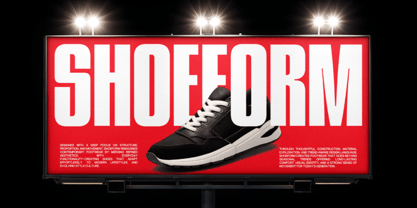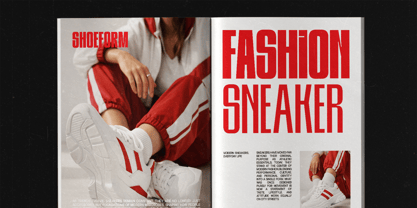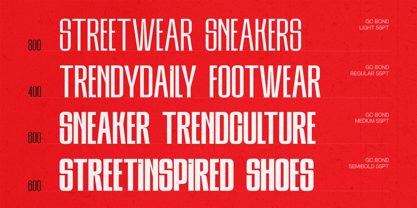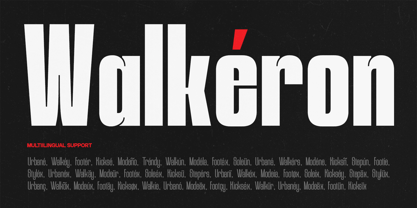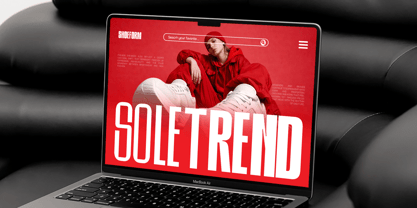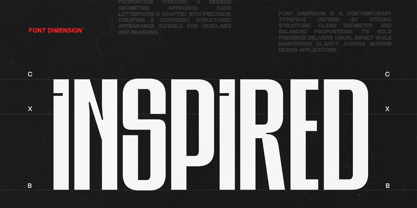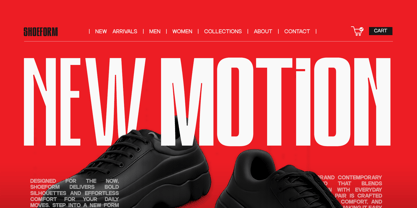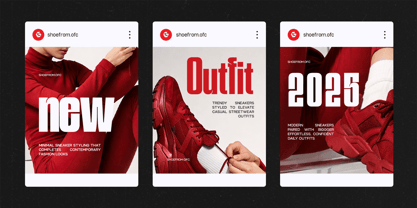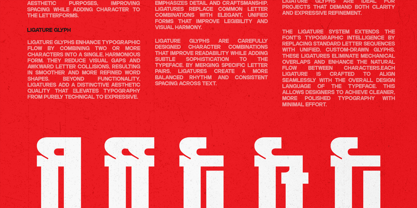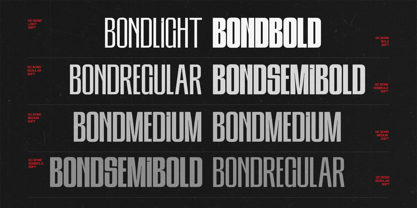
GC Gond
by Onyx Studio
The GC Gond Font Family was designed by Muhammad Hafiizh Solana and published by Onyx Studio. GC Gond contains 5 styles and family package options. More about this family
GC Bond – Inktrap Condensed is a contemporary sans serif typeface family designed with a condensed structure and inktrap detailing to deliver strong readability, efficiency, and modern character. Built for clarity in tight spaces, GC Bond combines sharp geometry with functional inktraps—ensuring optimal performance across both digital and print environments. Designed as a complete font family, GC Bond offers multiple styles that provide flexibility and consistency across typographic systems. Its condensed proportions make it ideal for headlines, branding, editorial layouts, posters, and space-conscious design applications, while the inktrap construction enhances legibility at smaller sizes and in high-contrast outputs. With precise detailing and confident letterforms, GC Bond balances technical function with visual impact. Whether used for bold titles, structured layouts, or modern visual identities, this typeface family delivers a strong, efficient, and contemporary typographic voice. Features: Condensed Sans Serif Family Inktrap Letter Construction Uppercase & Lowercase Numbers & Punctuation Optimized for Tight Layouts & Display Use Multilingual Support (170+ Languages) Bring structure, efficiency, and modern inktrap precision to your typography with GC Bond.